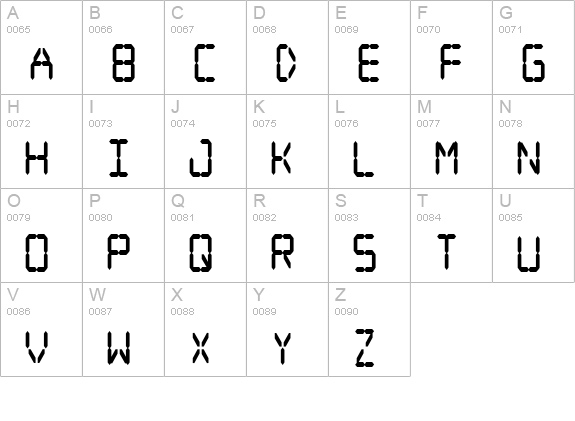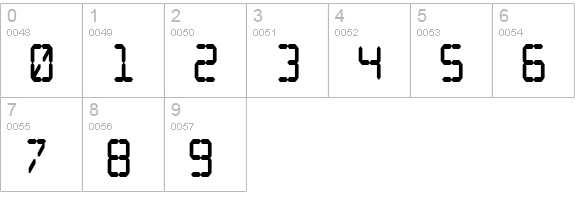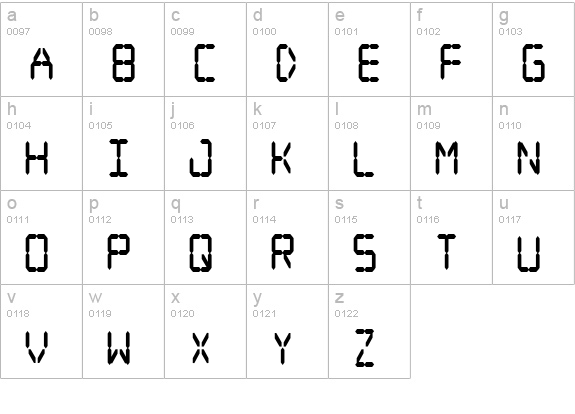
Digital dream Fat Narrow is a distinctive, condensed-width variant in the Digital typeface family \xE2\x80\x94 well suited to design and typography projects.
Digital dream Fat Narrow font is a modern and stylish typeface that exudes a bold and eye-catching presence. With its sleek and streamlined design, this font is perfect for creating striking headlines, logos, and branding materials. The narrow letterforms give a contemporary and sophisticated look to any project. What makes Digital dream Fat Narrow font even more appealing is that it is available for free download at FontsMarket.com. This means you can easily access this high-quality font without any cost, making it a valuable addition to your font collection. Whether you're a graphic designer, marketer, or creative professional, Digital dream Fat Narrow font offers versatility and impact for all your design needs. Download it today and elevate your projects with this stunning typeface.